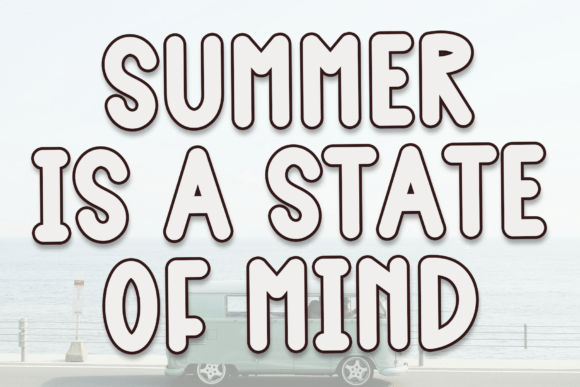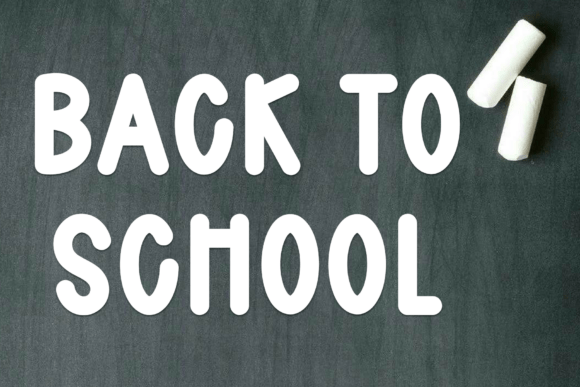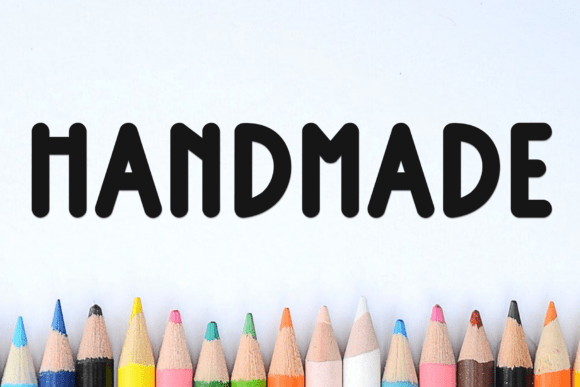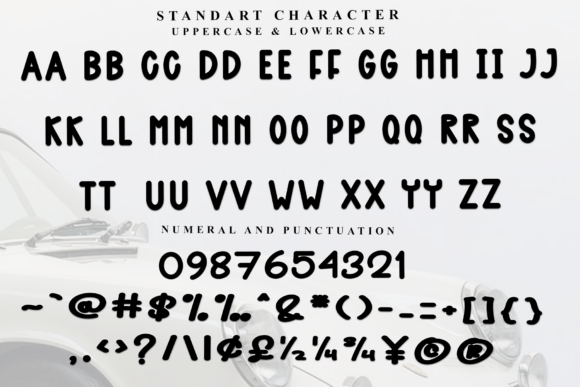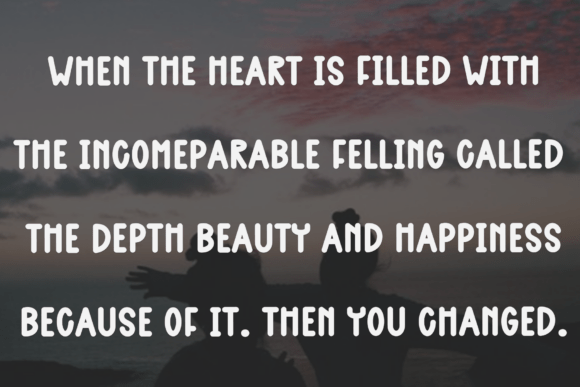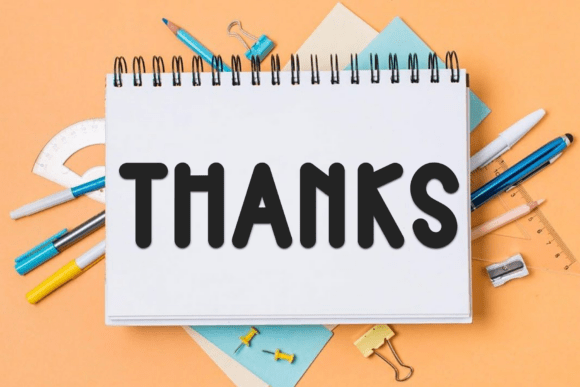
The Perfect Cup: Discovering the Charm of Coffee Time Font
Ah, the quest for the perfect font – a journey every designer, crafter, and creative hobbyist can relate to. I recall working on a project, pouring my heart and soul into it, but hitting a roadblock when it came to finding the right typography. The client wanted something unique, something that would make their brand stand out. That’s when I stumbled upon Coffee Time Font, and it was love at first sight! ✨
A Beautiful Brew: What Makes Coffee Time Font Special
Coffee Time Font is a beautiful and eye-catching font designed with a soft, unique touch. Its distinctive strokes give it a special character, making it meaningful and versatile for future use. With various characters, it’s perfect for design projects, crafts, and other creative works. Compatible with various applications, including Windows and open-source platforms, this natural font style is ideal for a wide range of products.
An Honest Review: The Good, the Bad, and the Quirky
- ✨ Unique and distinctive strokes that add a personal touch to any design
- ✅ Versatile and compatible with various applications and platforms
- 🌈 Wide range of characters to experiment with and make your designs pop
- 💻 Easy to use and integrate into various design projects
While Coffee Time Font is a stunning addition to any design project, there are a few things to keep in mind. ⚠️ Some users might find the font a bit too delicate for certain applications, and it may not be suitable for very small font sizes. Additionally, the font’s uniqueness might not be immediately apparent to some users, requiring a bit of exploration to fully appreciate its features.
The Designer’s Inspiration: A Backstory
Coffee Time Font was designed with the intention of creating a unique and versatile font that would add a personal touch to any design project. The designer, inspired by the warmth and comfort of a cup of coffee, aimed to create a font that would evoke feelings of coziness and approachability. With its distinctive strokes and wide range of characters, Coffee Time Font is the perfect addition to any design project.
Q: What is Coffee Time Font?
A: Coffee Time Font is a beautiful and eye-catching font designed with a soft, unique touch. Its distinctive strokes give it a special character, making it meaningful and versatile for future use.